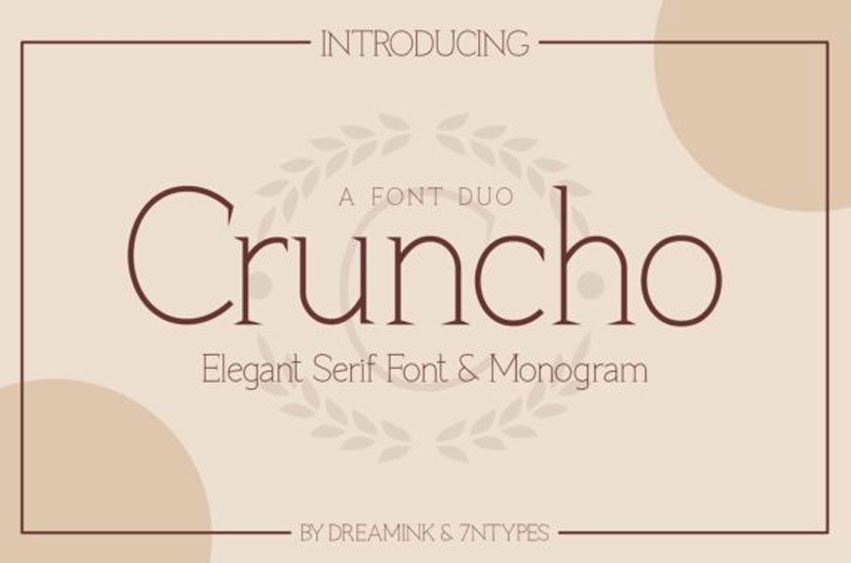
Cruncho Font
Cruncho Font is an elegant sans serif font. Suitable to a wide variety of designs due to its neat and simple style.
Cruncho has the potential to become your favorite go-to font, no matter the occasion!